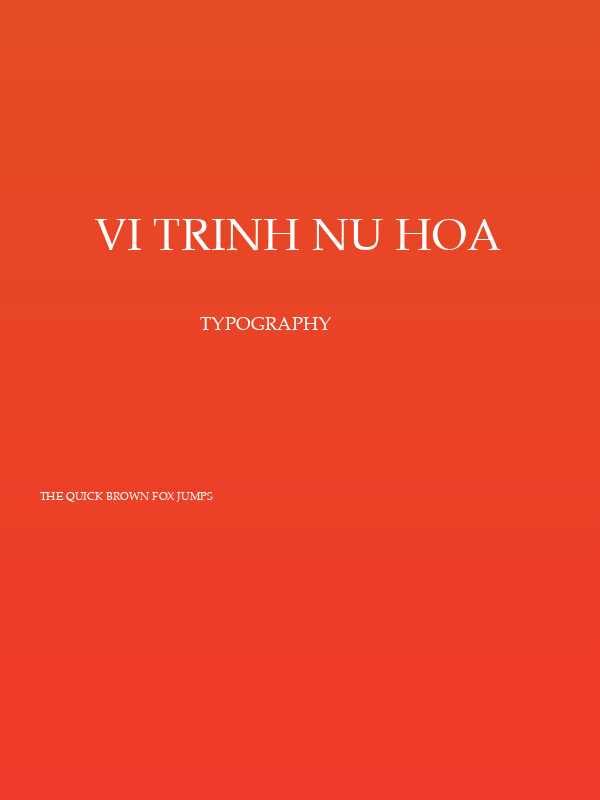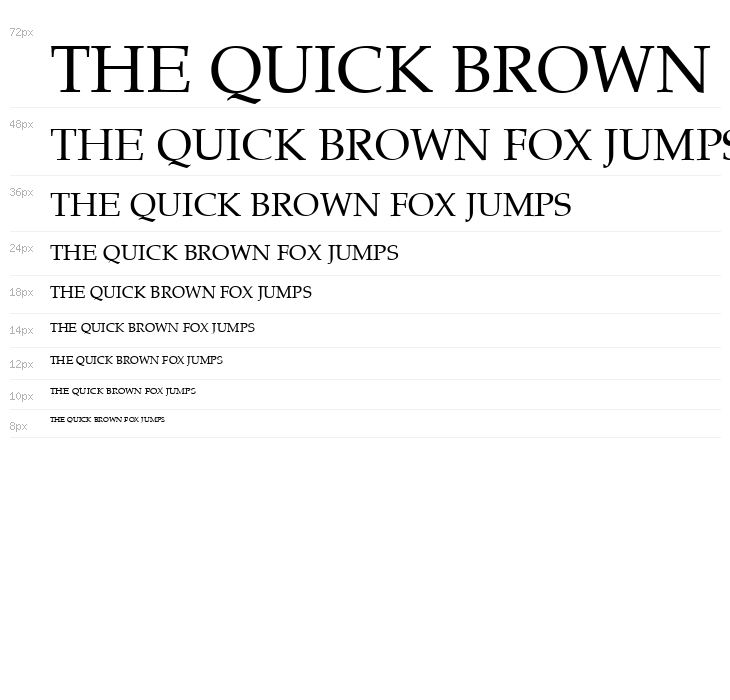
VI Trinh Nu Hoa Font
VI Trinh Nu Hoa Description
This font features a classic serif style with elegant and refined strokes. The characters exhibit a balanced proportion with slightly elongated serifs that add a touch of sophistication. The uppercase letters are bold and commanding, while the lowercase letters maintain a graceful flow. The numerals are clear and distinct, ensuring readability. Special characters are well-integrated, maintaining the overall aesthetic. This font is suitable for projects that require a traditional yet stylish appearance.
| Proposed Projects | Ideal for book covers, formal invitations, branding materials, and editorial design. |